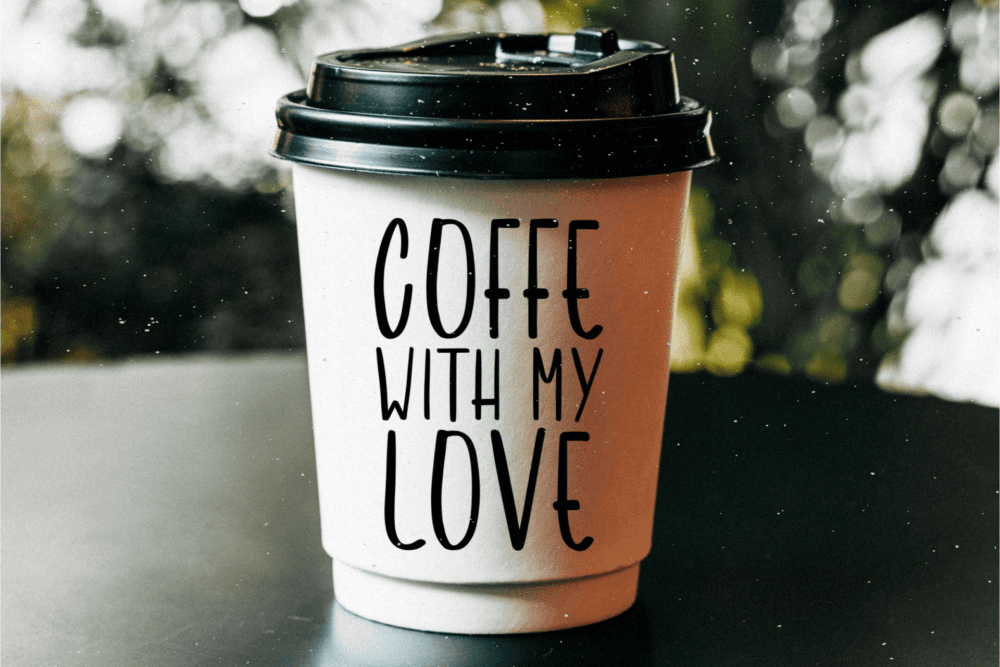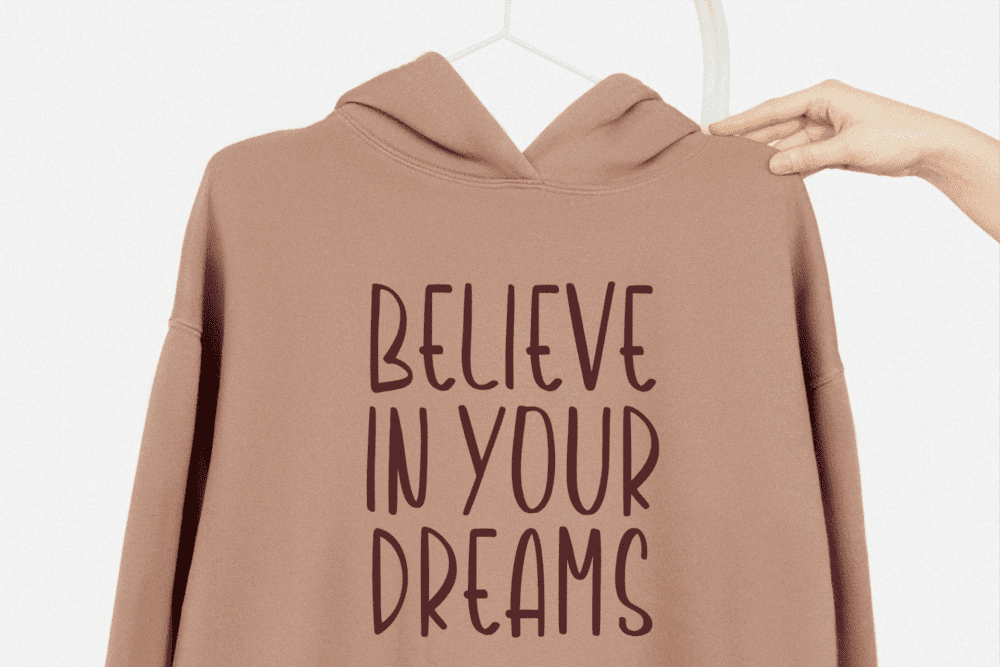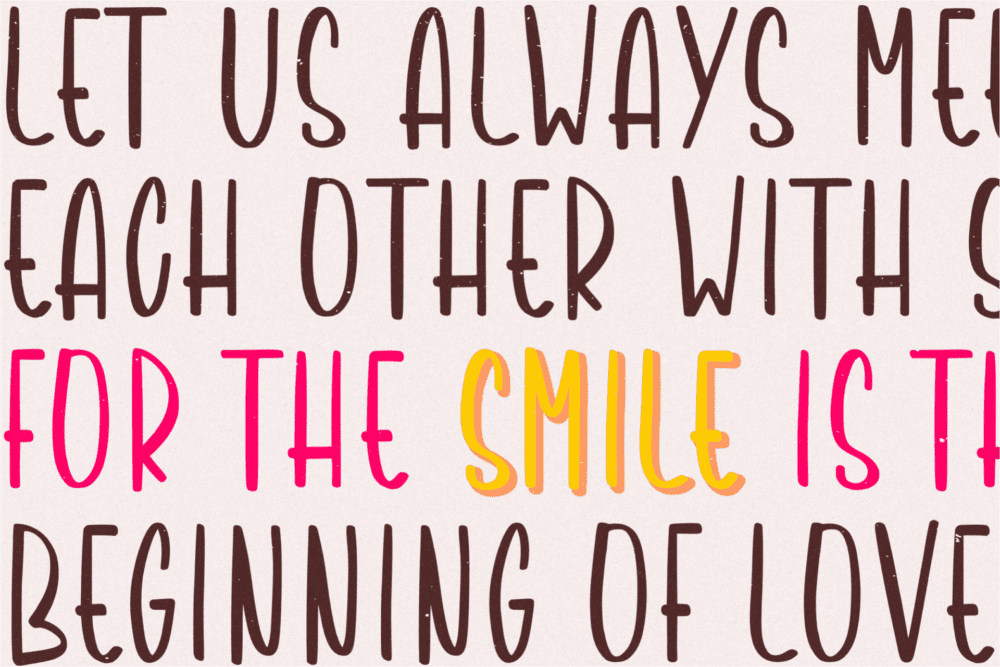
Nightheart Font
Nightheart is a bold display font perfect for product packaging, branding project, magazines, social media posts, T-shirts, and clothing design, or you can use it to express yourself with its beautifully crafted characters!